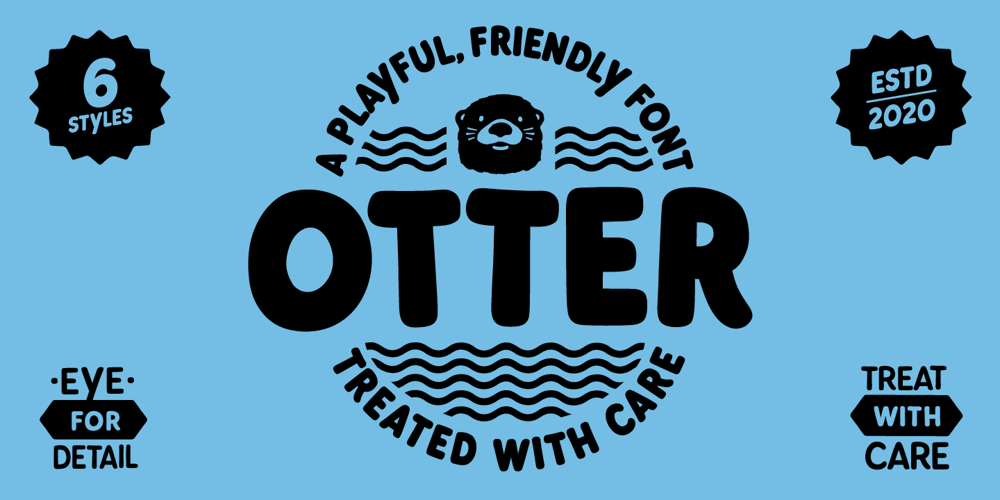
Otter
Otter font
Otter Font Family was designed by Ed Hemphill and published by Hemphill Type. Otter contains 6 styles and family package options. With a keen eye for detail and friendly nature, the otter was the perfect inspiration for this playful sans serif typeface.The family of otters consists of 6 styles to be treated with care.